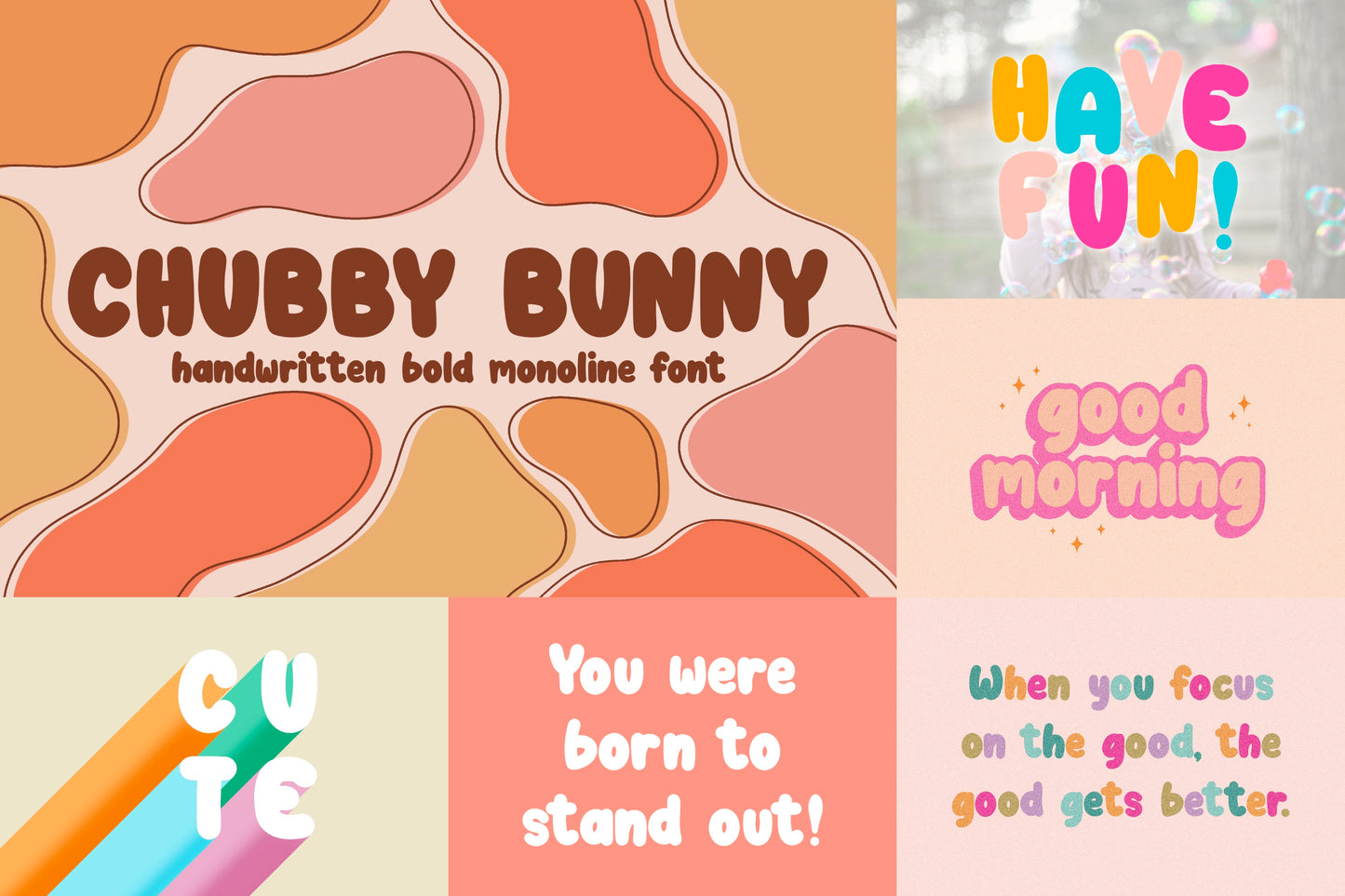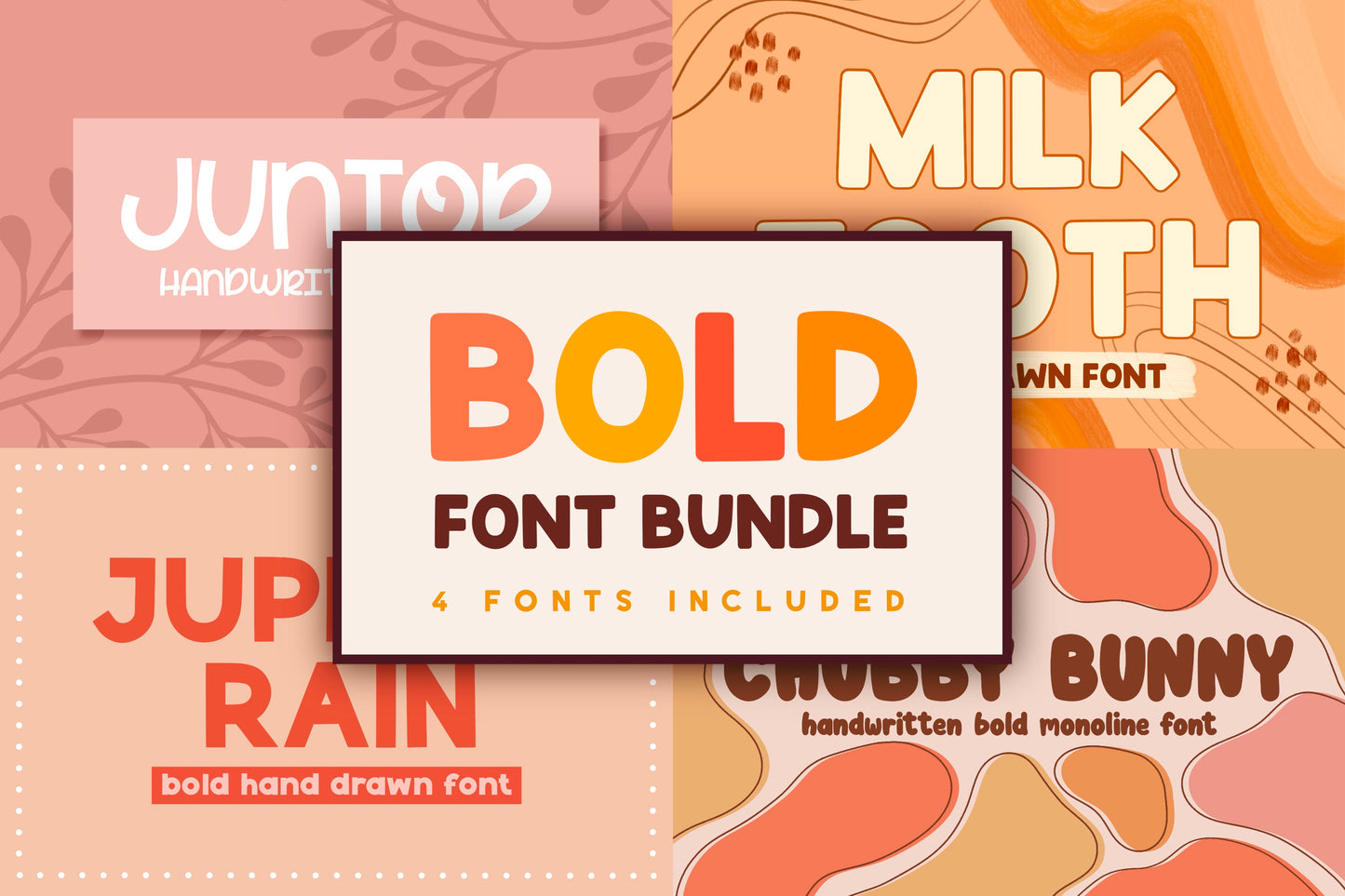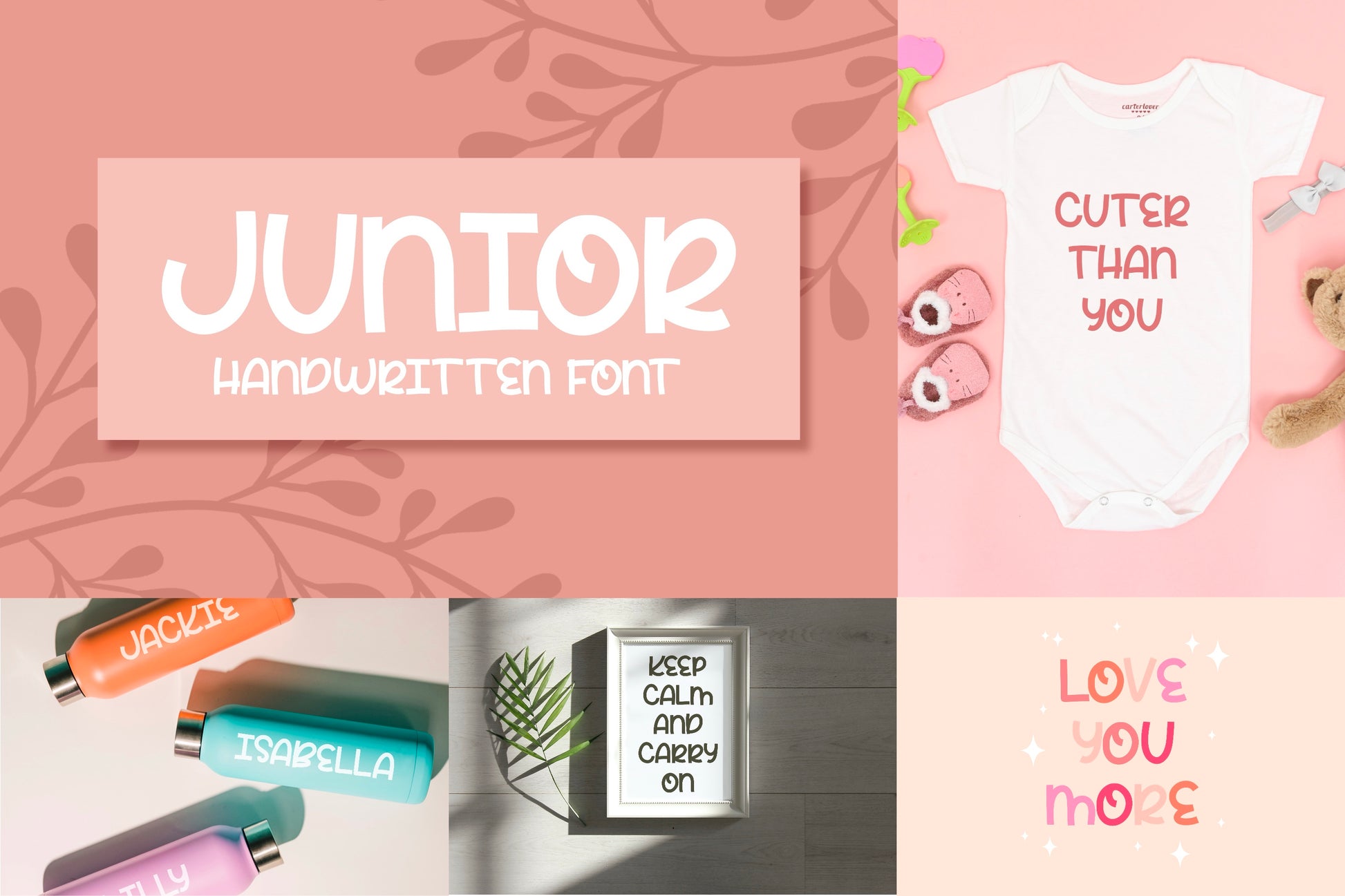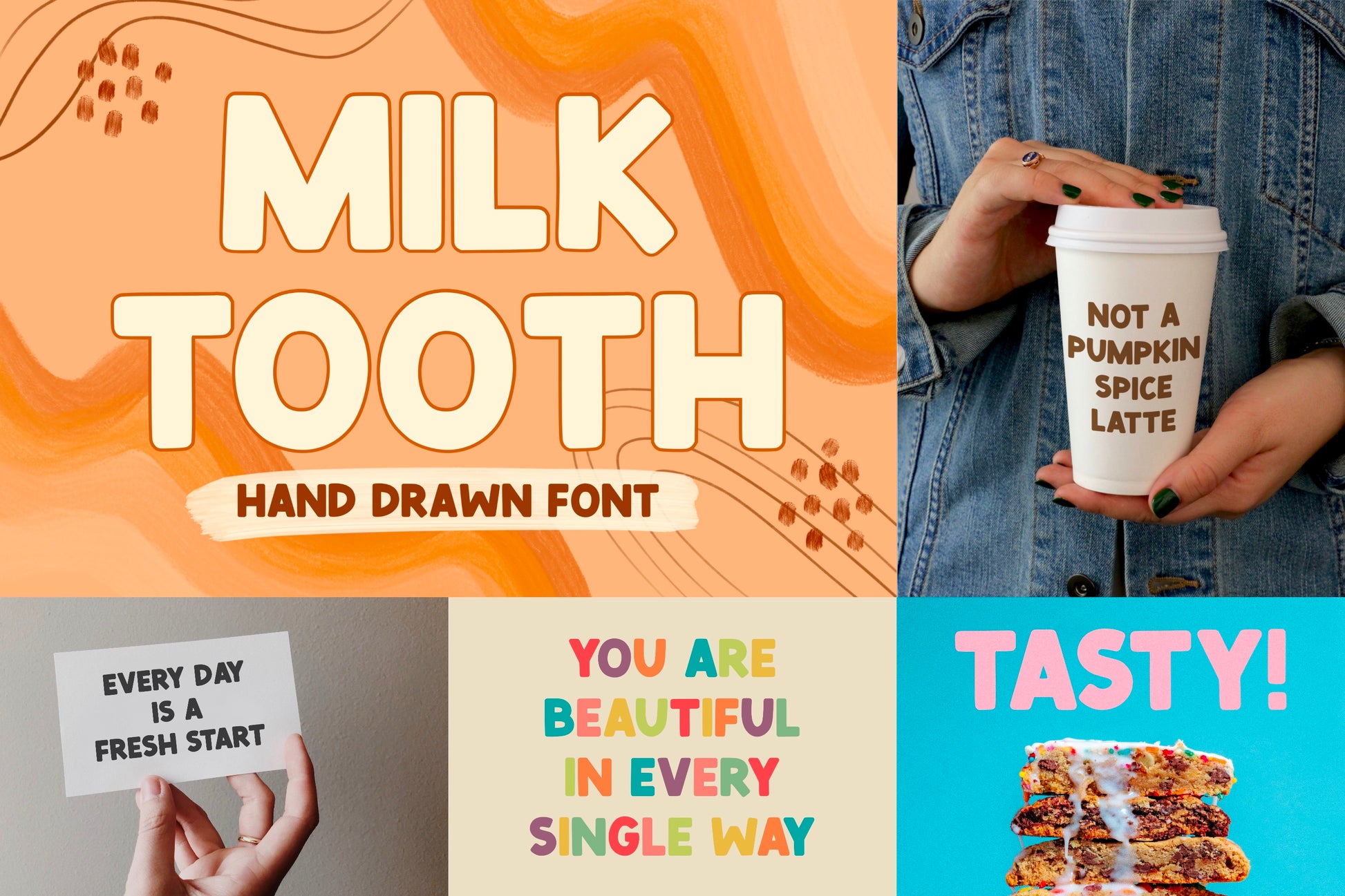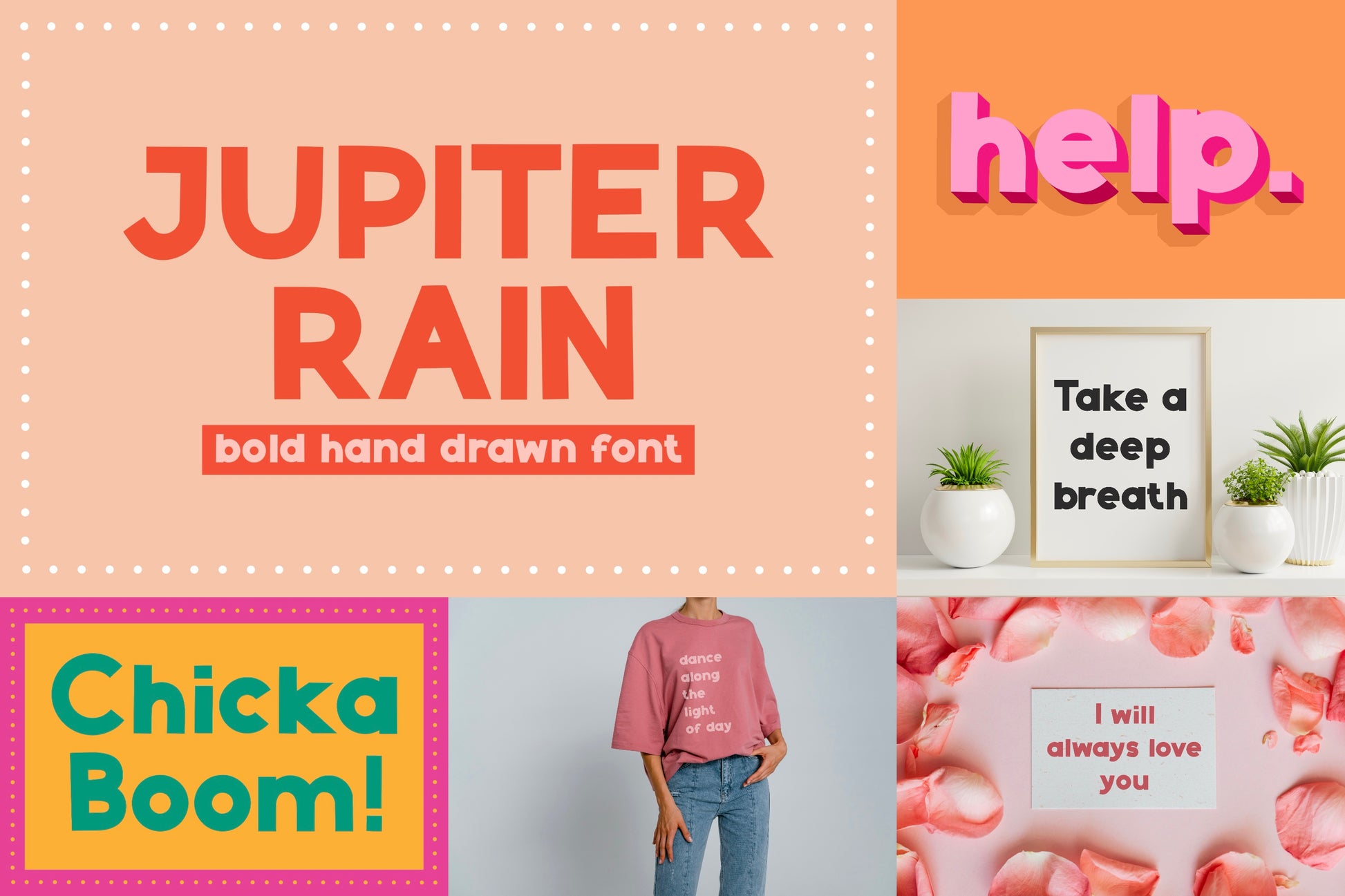
Bold Font Bundle | 4 Fonts
This awesome bundle of four cure & bold fonts will save you over 50% off the regular price—normally $39!! All of these fonts are handwritten/hand drawn fonts and they are perfect for any design and work great for branding, logos, posters, magazines, quotes, and anything else you can think of!
Junior
- Milk Tooth
- Jupiter Rain
- Chubby Bunny